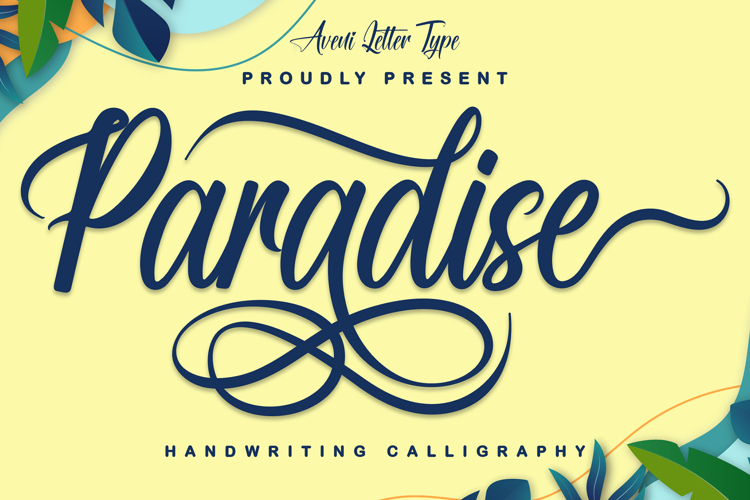
Paradise Love Font
Hello guys, I am a Paradise font that was born with exquisite calligraphy-style handwriting. This Paradise font has been kerned very neatly and has many alternate characters which are very easy to use for both PC and MAC. And of course, this Paradise font can be used for many projects such as you can use it for greeting cards, wedding invitation cards, product branding, logotypes, websites, business cards, letterheads, shop names, company names, wedding invitation cards, product packaging for your business, clothing branding, crafting, and many more.